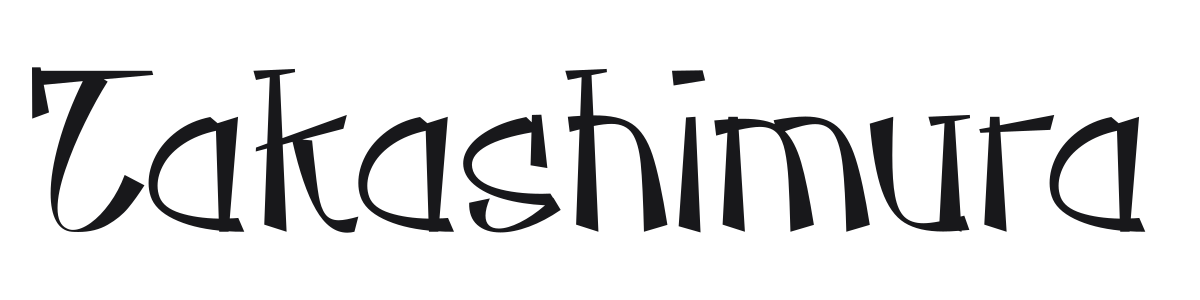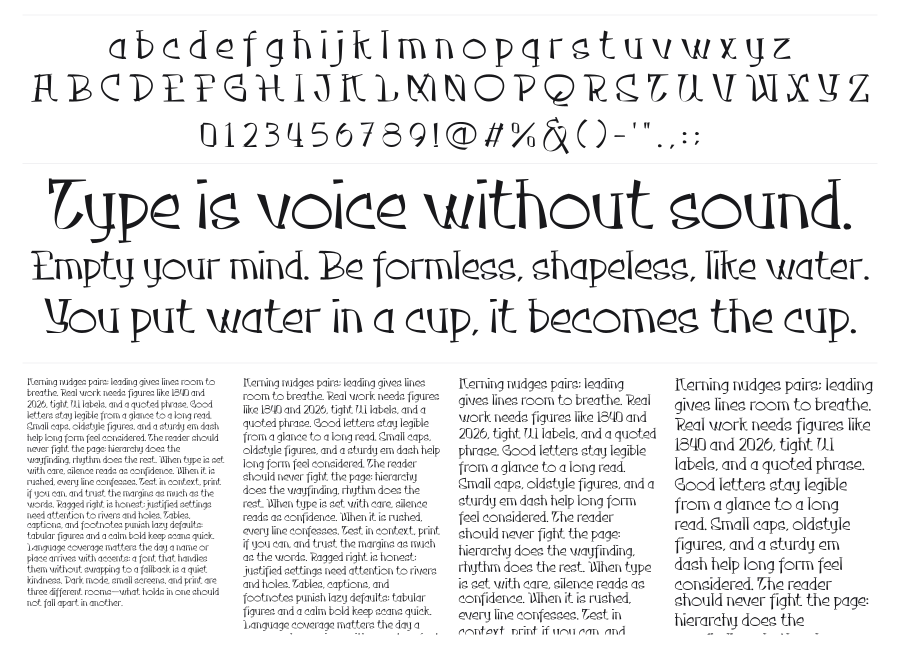
Takashimura
Takashimura is a quirky display serif with tall, narrow proportions and an intentionally uneven, hand-crafted construction. The letters blend wedge and slab serif details with irregular stroke angles that give it a medieval-meets-indie character unlike anything purely historical or purely contemporary. It works best at large sizes where its rough, expressive texture can be appreciated.